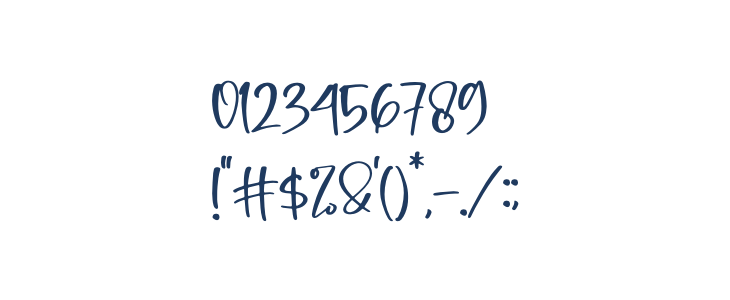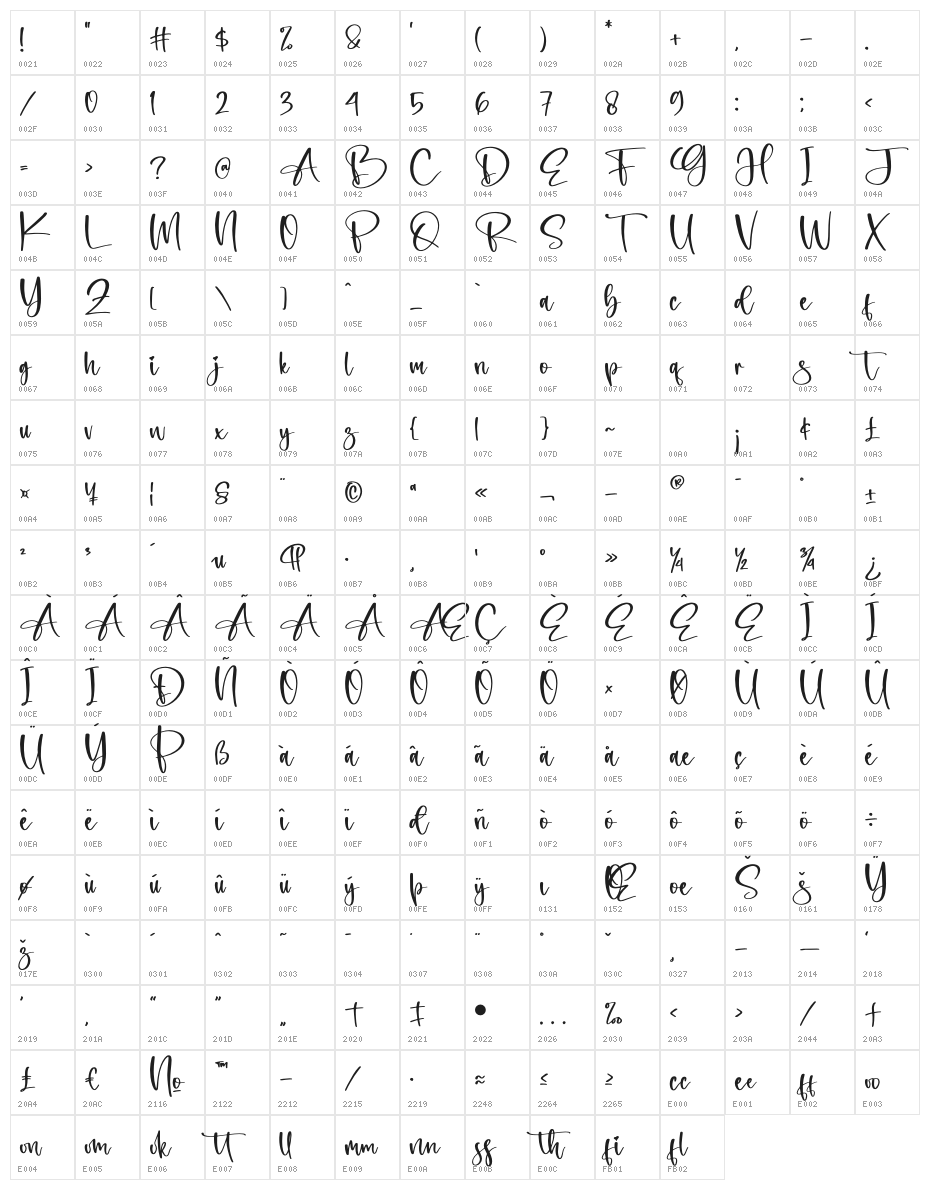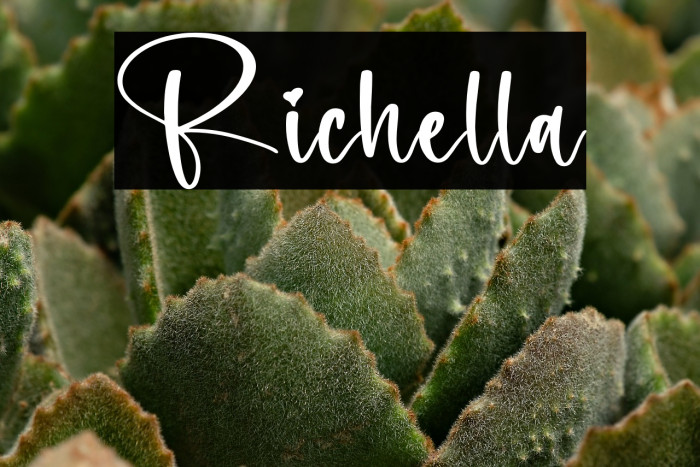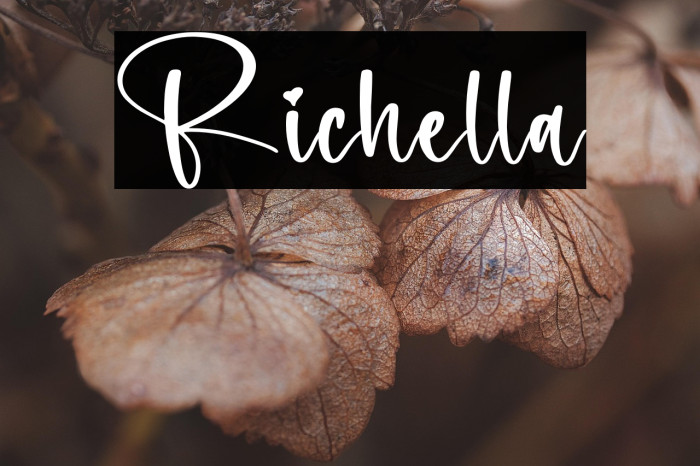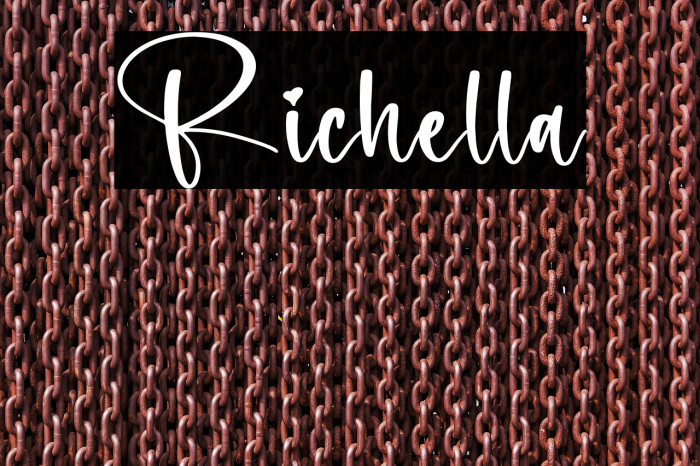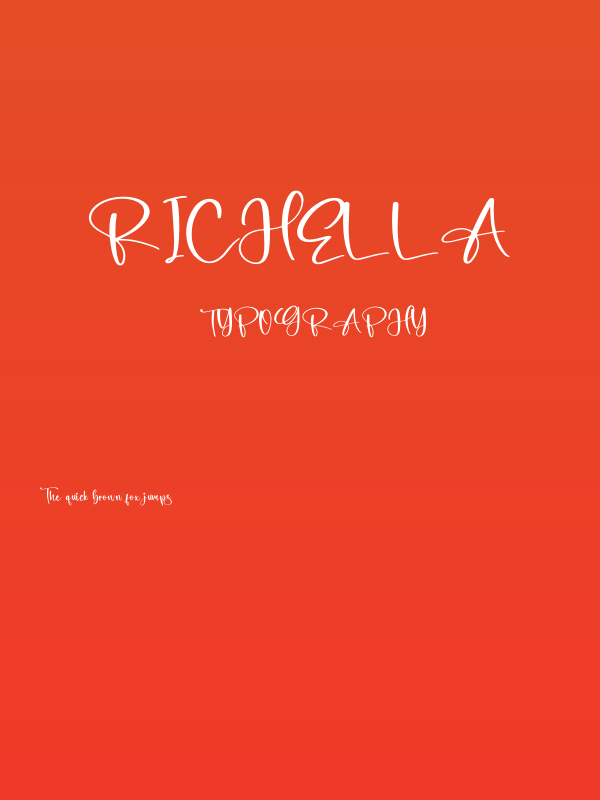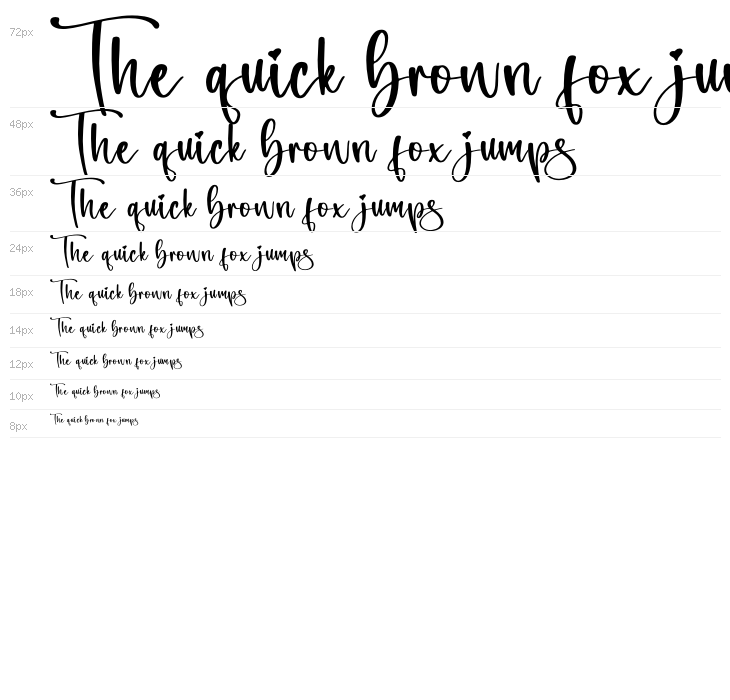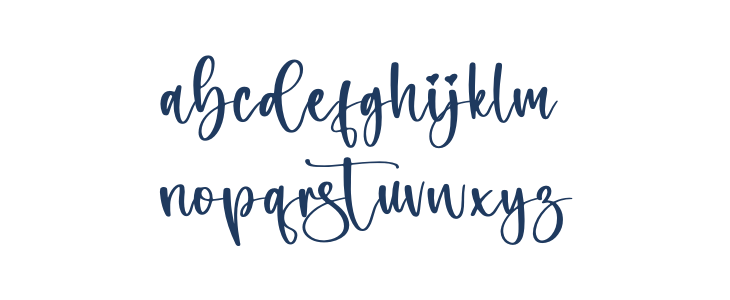
Richella Font
Richella Description
This font features a lively and expressive handwritten style, characterized by its fluid and dynamic strokes. The uppercase letters exhibit a playful yet elegant flair, with loops and swirls that add a touch of whimsy. The lowercase letters maintain a consistent flow, enhancing readability while retaining a personal touch. Numbers are bold and clear, matching the overall energetic aesthetic. Special characters are creatively designed, integrating seamlessly with the rest of the font. This font's unique personality makes it ideal for projects that require a personal and artistic touch.
Use CaseLogos, Headlines, Invitations
Proposed ProjectsIdeal for wedding invitations, greeting cards, branding, and social media graphics.